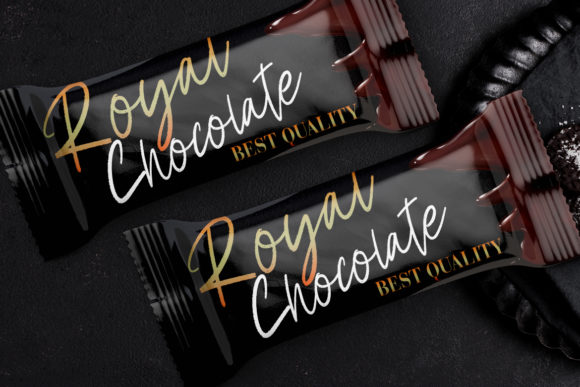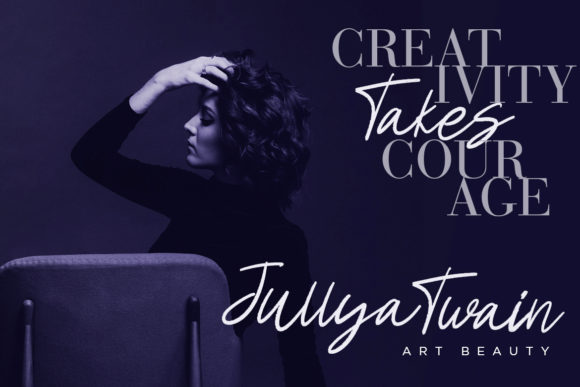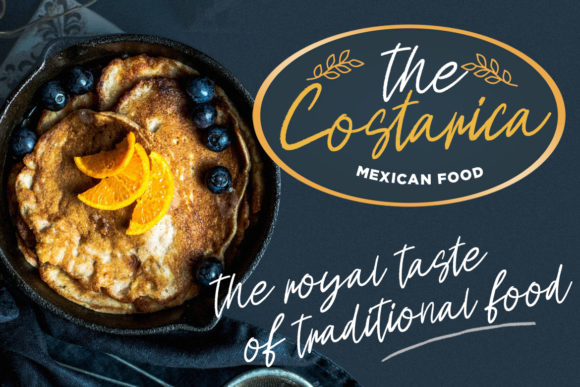
Introduction to Laracryf Font
Have you ever stared at a blank canvas, searching for the perfect font to bring your creative project to life? That’s exactly where I was when I stumbled upon the stunning Laracryf Font. Its bold, handwritten style immediately caught my attention, and I knew I had to learn more.
Laracryf Font is a high-quality design resource that offers a unique, smooth appeal that’s perfect for adding a touch of personality to any design. Whether you’re working on a graphic project or creating a social media post, this font is sure to elevate your design to the next level.
Key Features of Laracryf Font
- High-quality design resource with a transparent background, ideal for creative projects.
- Designed to be highly legible and versatile, making it suitable for use in a range of creative applications.
- Supports a range of languages, making it a great choice for international design projects.
- Includes a range of unique characters and glyphs, adding an extra layer of depth and creativity to designs.
Honest Review: Laracryf Font
I recently came across the Laracryf Font, and I’m excited to share my thoughts on this design resource. As a designer, I’m always on the lookout for high-quality fonts that can elevate my creative projects.
The Laracryf Font is a great addition to any design arsenal. Its unique style and versatility make it perfect for a wide range of projects. Here are some things that work well about this font:
- ✨ High-quality design: The Laracryf Font has a crisp, clean aesthetic that makes it perfect for both digital and print projects.
- ✨ Transparent background: This font has a transparent background, making it easy to use in a variety of design scenarios.
While the Laracryf Font is a great resource, there are some limitations to consider:
- ⚠️ Limited font styles: The Laracryf Font only comes in a few different styles, which may limit its use in certain projects.
Overall, I’m impressed with the Laracryf Font and would recommend it to designers looking for a high-quality, versatile font for their creative projects.
The Laracryf Font is ideal for creating high-quality designs for various purposes, including:
Graphic design projects
Logo designs
Brochures and flyers
Infographics